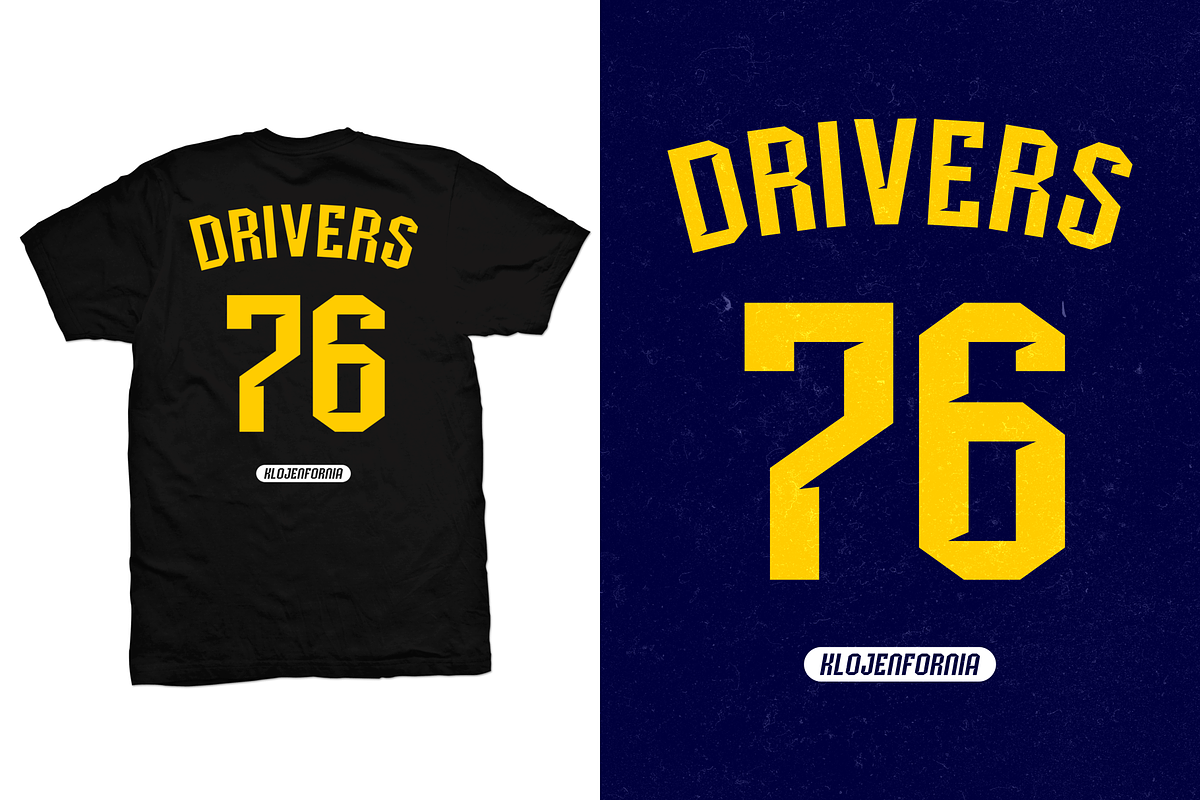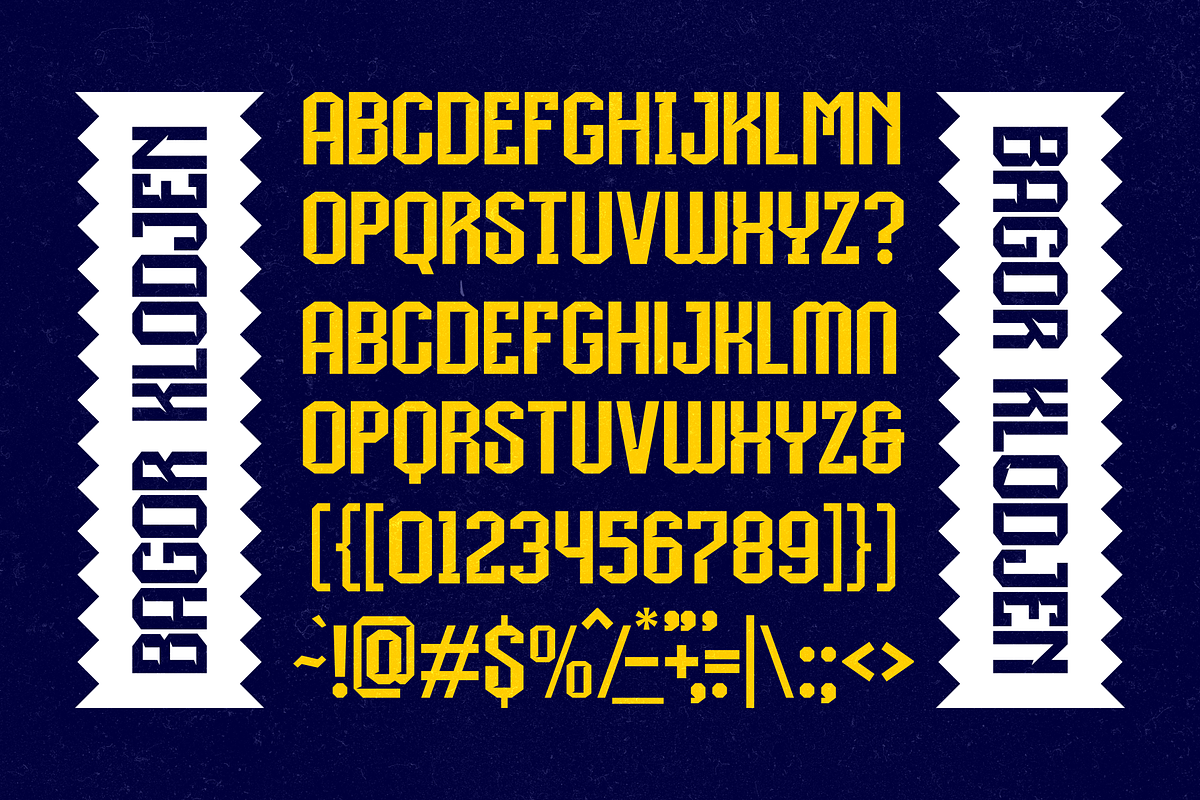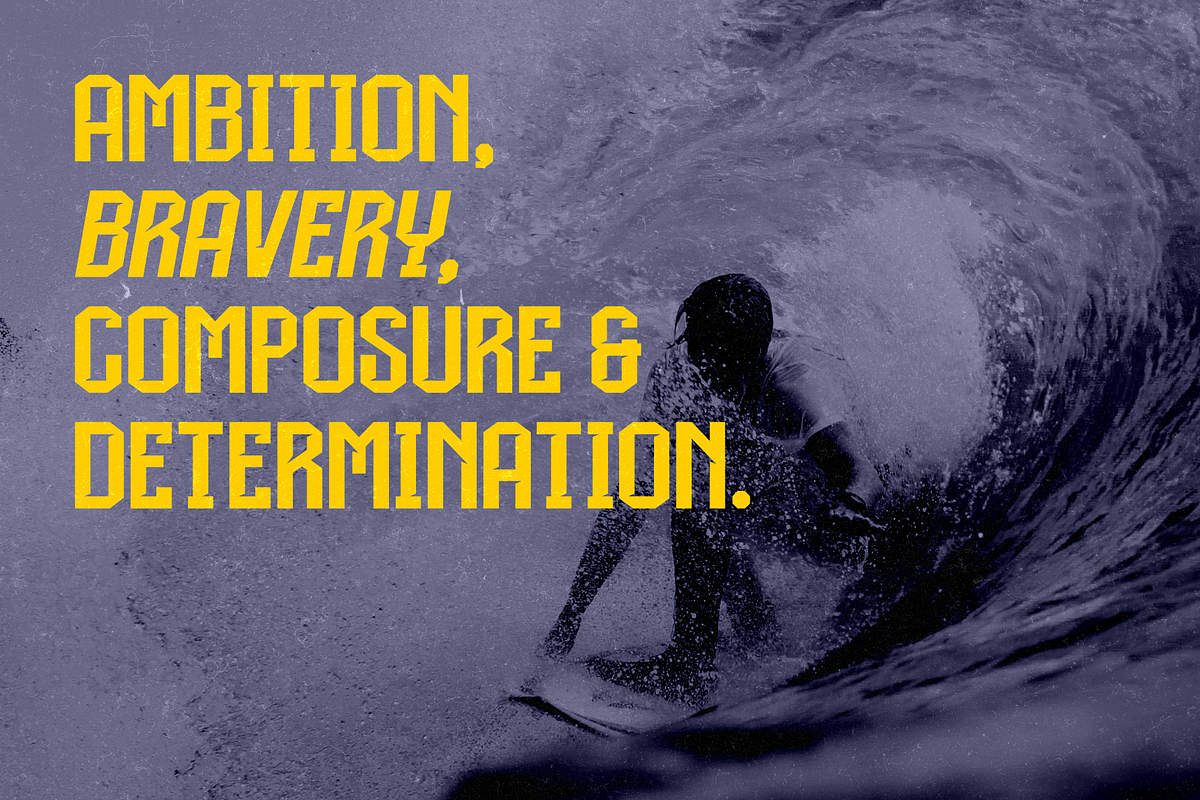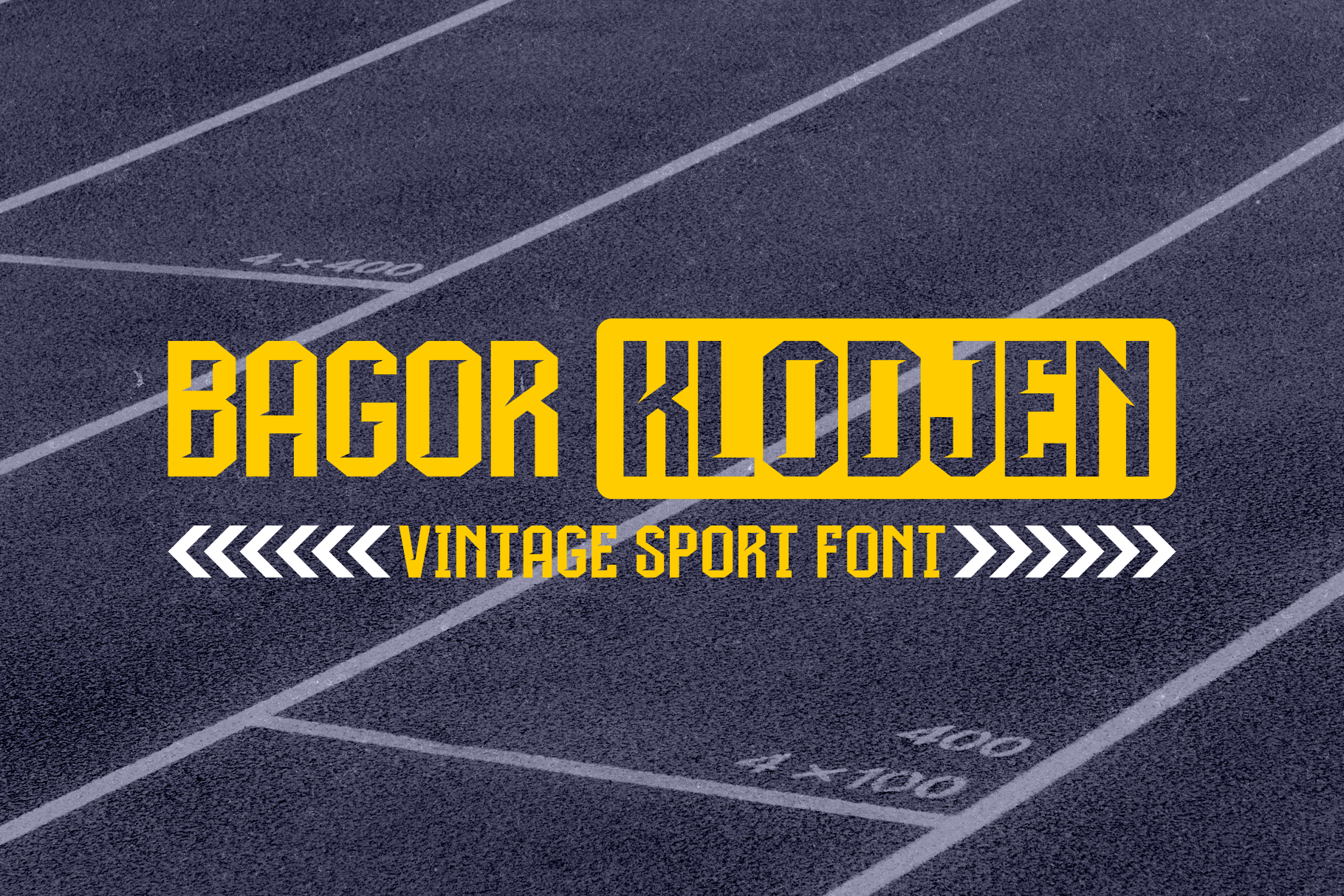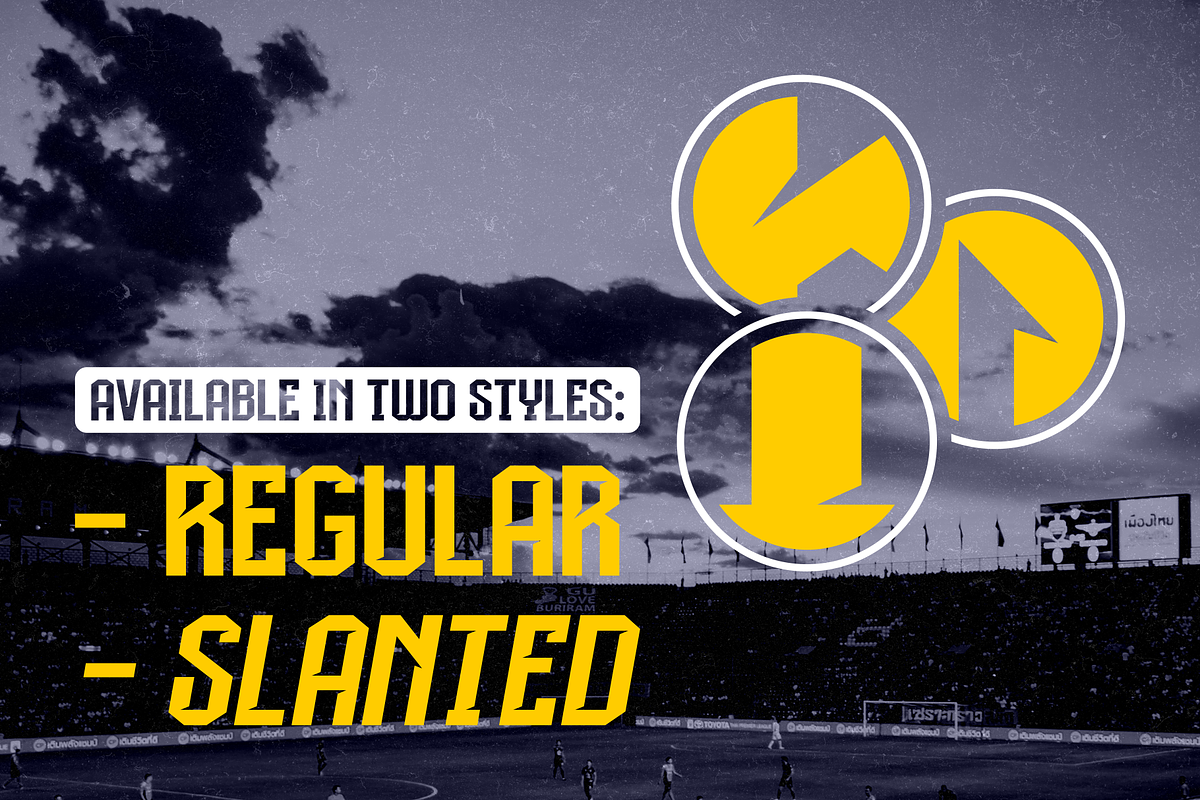
Bagor Klodjen | Sport Font
Introducing Bagor Klodjen, our latest all caps blocky font, inspired by the classic letters that are used in sport’s jersey/apparel. We made it relevant with today’s trend by adding some small details. Suits best for logo/branding, sports jersey/apparel, headline, posters, etc.
- Available in Regular and Slanted